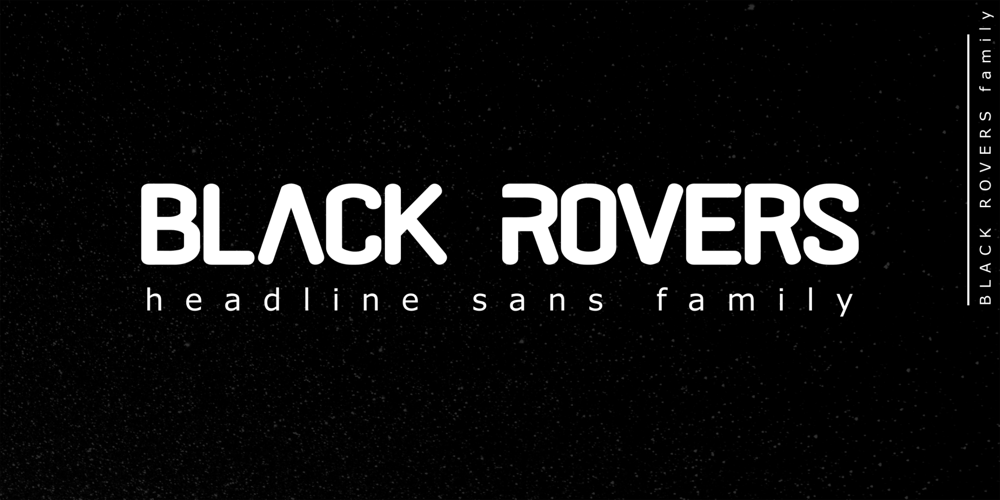
Black Rovers Font Family was designed by Suratno and published by Pandanwangi. Black Rovers contains 8 styles and family package options. Black Rovers is a striking sans serif font with a bold and modern charm. It will add a touch of minimalism to any design project. If there is anything you need to ask, you can contact me at suratnokang@gmail.com